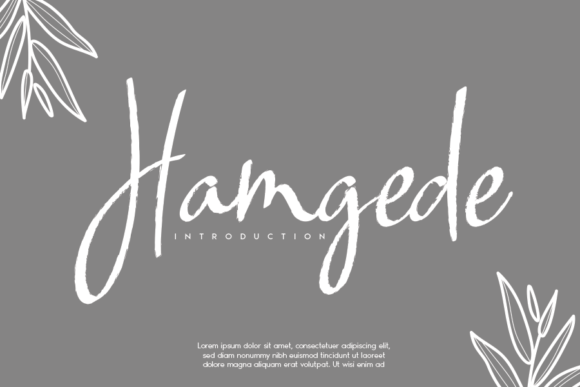
Showcase your creativity with the enchanting Hamgede Font, a masterpiece from the skilled hands of andikastudio. Hamgede's delicate, handwritten strokes dance across your screen, captivating hearts with its unique charm. Whether you're a seasoned designer or just starting out, Hamgede is the perfect font to elevate your projects to new heights.
Hamgede's versatility knows no bounds. Its elegant curves and flowing lines add a touch of sophistication to invitations, branding, and social media posts. Its playful nature shines through in personal journals, greeting cards, and packaging designs. No matter what your creative vision, Hamgede has the power to transform it into a work of art.
But don't just take our word for it. Here's why designers and creatives around the world can't get enough of Hamgede:
* **Effortless Elegance:** Hamgede's graceful lines evoke a sense of timeless sophistication, adding a touch of luxury to any project.
* **Unleash Your Creativity:** With Hamgede's versatile style, your imagination can run wild. From classic designs to modern masterpieces, this font empowers you to create unique and captivating content.
* **Capture Attention:** Hamgede's captivating strokes instantly command attention, making your words stand out and leaving a lasting impression.
* **Personalize Your Projects:** Hamgede's handwritten touch adds a personal touch to your designs, making them feel authentic and heartfelt.
* **Endless Possibilities:** Whether you're crafting logos, designing websites, or writing heartfelt letters, Hamgede's versatility knows no limits.